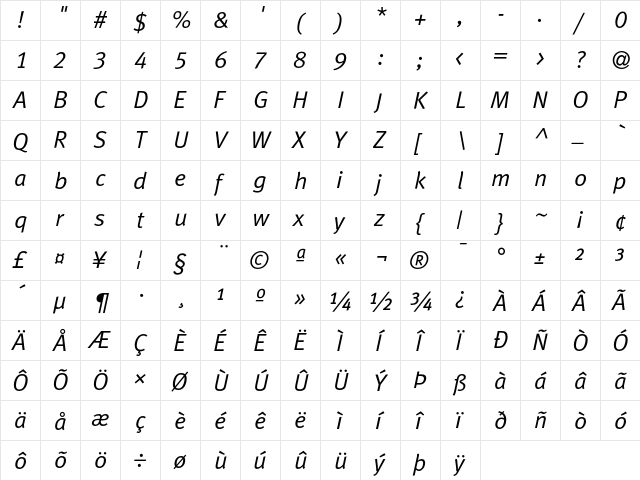
MetaKorrespondenz Italic
Design Context for MetaKorrespondenz Typeface
MetaKorrespondenz takes a measured approach to typography — its balanced proportions and neutral character make it a reliable workhorse for both digital and print work. Its italic angle brings a sense of urgency and motion to the letterforms.
Pro Tip: Try MetaKorrespondenz for annotation and caption copy alongside an upright companion — the contrast in angle creates a dynamic but ordered typographic system.